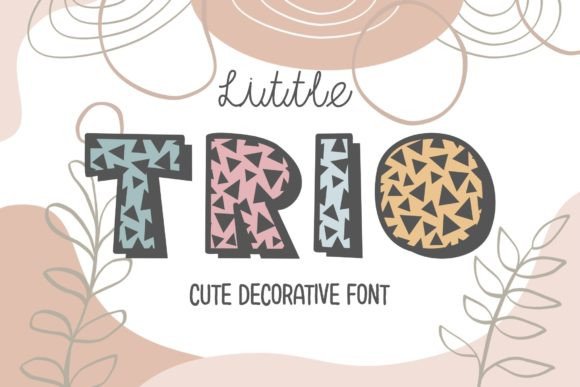
Journey into the realm of creativity with Little Trio, a decorative font that will rejuvenate your designs and ignite your imagination. Immerse yourself in a world of boundless possibilities, where words dance with grace and elegance, leaving an indelible mark on the hearts of your audience. Let Little Trio be your muse, guiding you to create captivating logos, branding materials, and social media posts that radiate personality and professionalism.
Crafted with meticulous attention to detail by the renowned 18CC FONTs, Little Trio exudes a charm that is both timeless and contemporary. Its graceful curves and playful strokes evoke a sense of joy and whimsy, while maintaining a level of sophistication that elevates your designs to new heights. Whether you're a seasoned designer or just starting your creative journey, Little Trio is the perfect font to add a touch of magic to your projects.
With Little Trio, you can transform ordinary text into captivating works of art. It's the perfect font for creating stunning logos that command attention and leave a lasting impression. Its unique design adds a personal touch to your branding, making your business stand out from the crowd. Create social media posts that pop with personality, engaging your audience and leaving them wanting more.
But Little Trio's versatility extends far beyond the digital realm. Unleash your creativity and explore the myriad ways to incorporate this charming font into your crafty DIY projects. Add a touch of whimsy to handmade cards, personalize gifts with heartfelt messages, or create unique home décor pieces that reflect your personal style. Little Trio is the perfect font to bring warmth and charm to any project you undertake.
Little Trio is more than just a font; it's an invitation to express yourself creatively and leave your mark on the world. It's the perfect font for those who dare to be different, who embrace individuality, and who strive to create designs that resonate with their audience. Join the growing community of creative professionals who have discovered the magic of Little Trio and let your imagination soar.